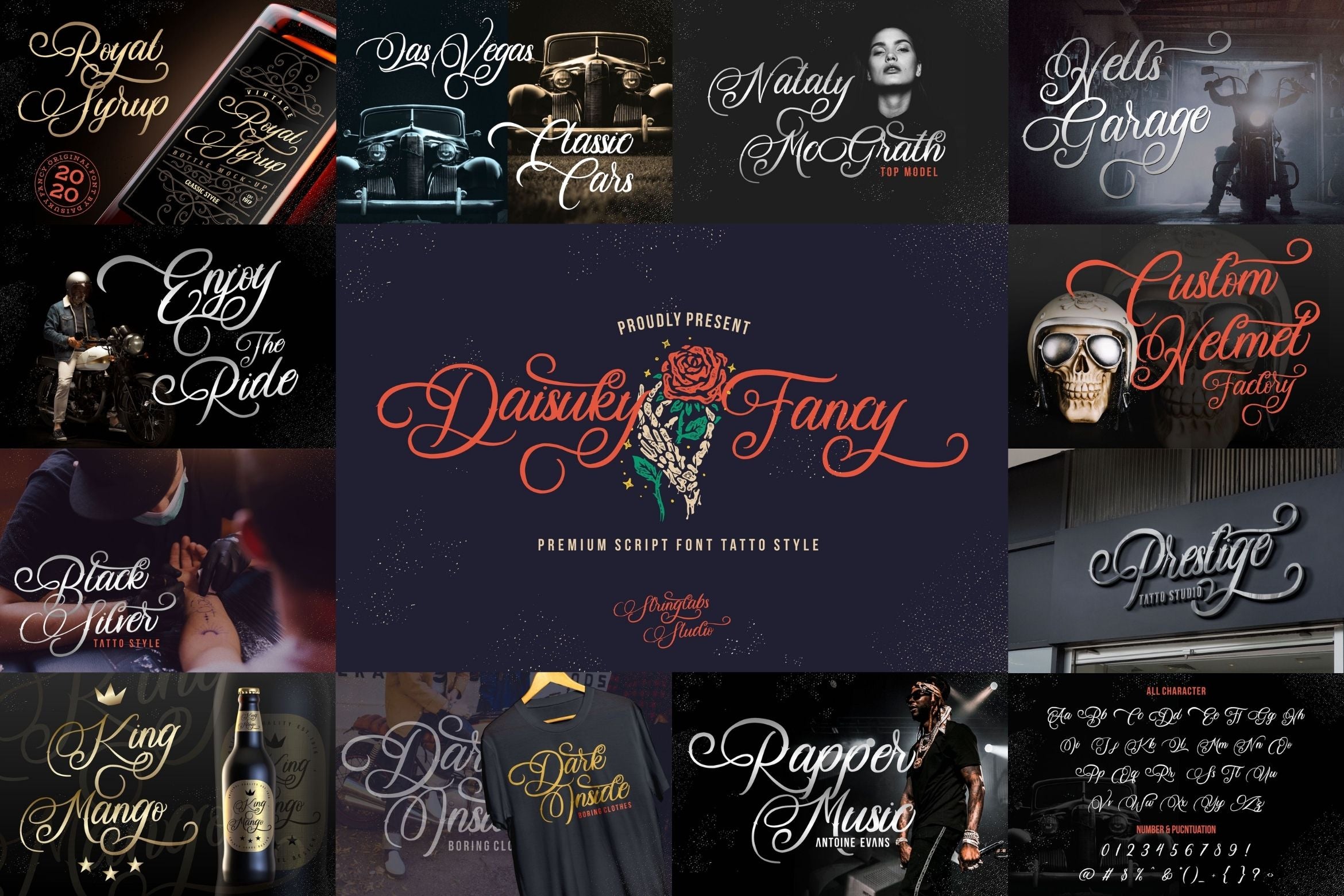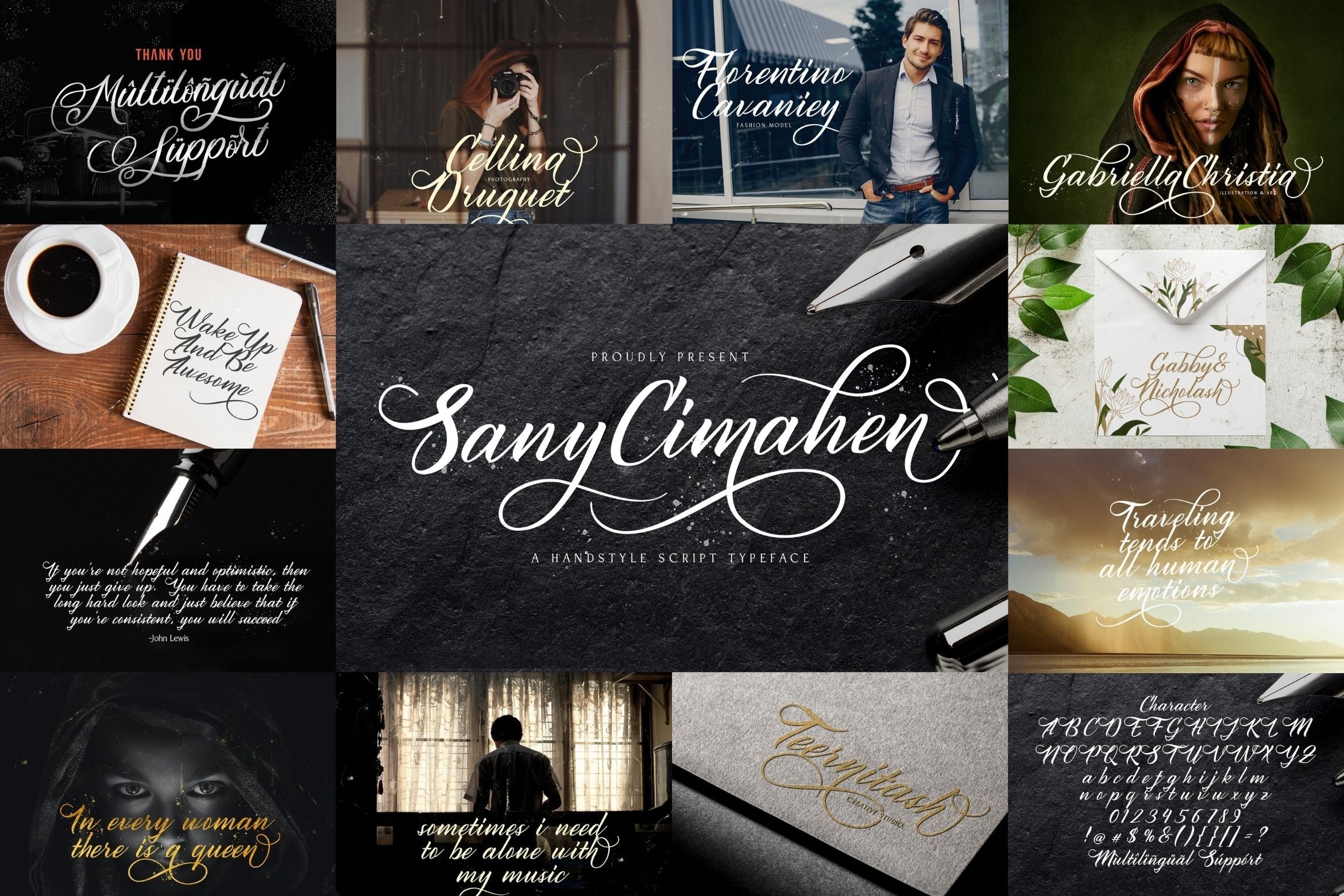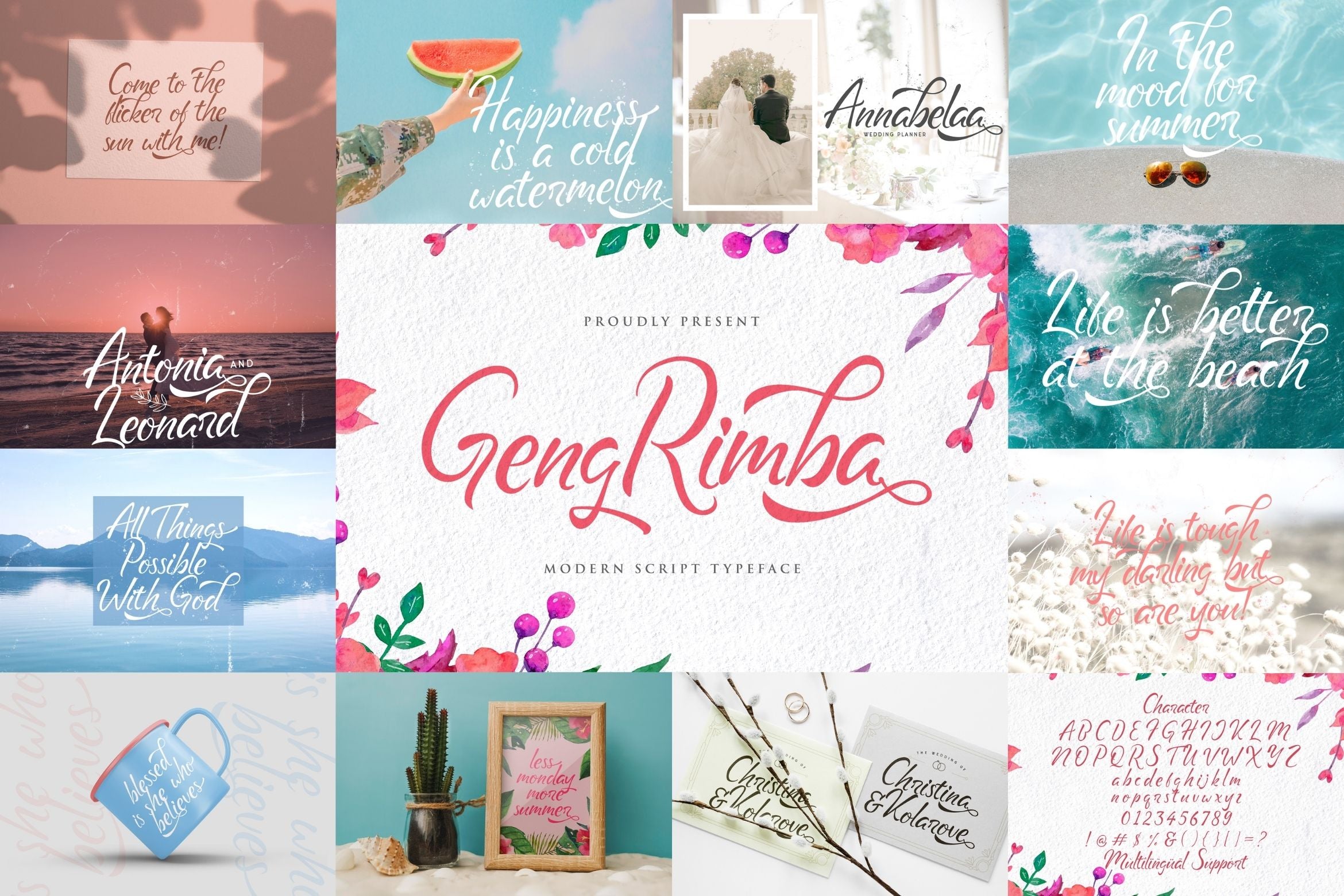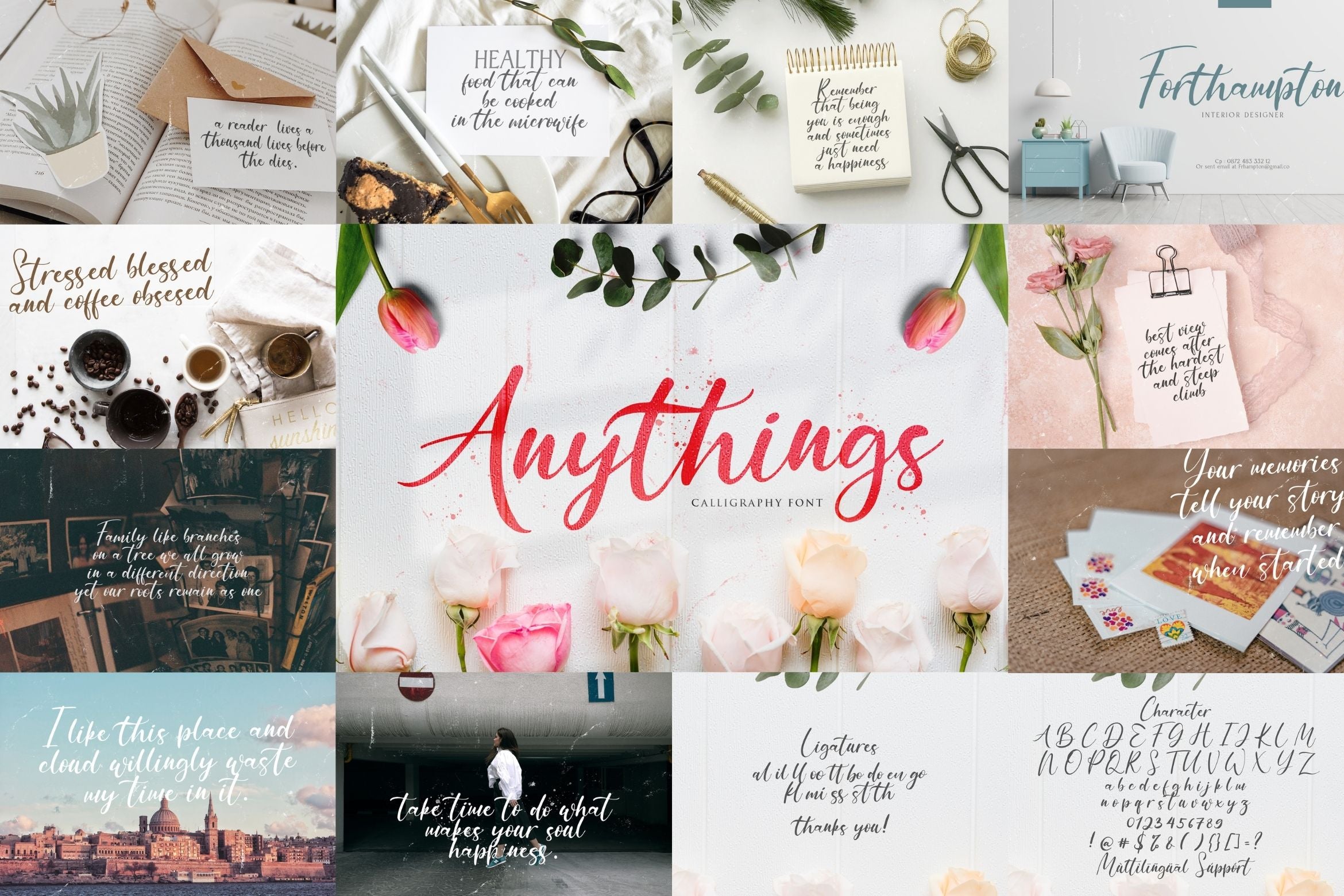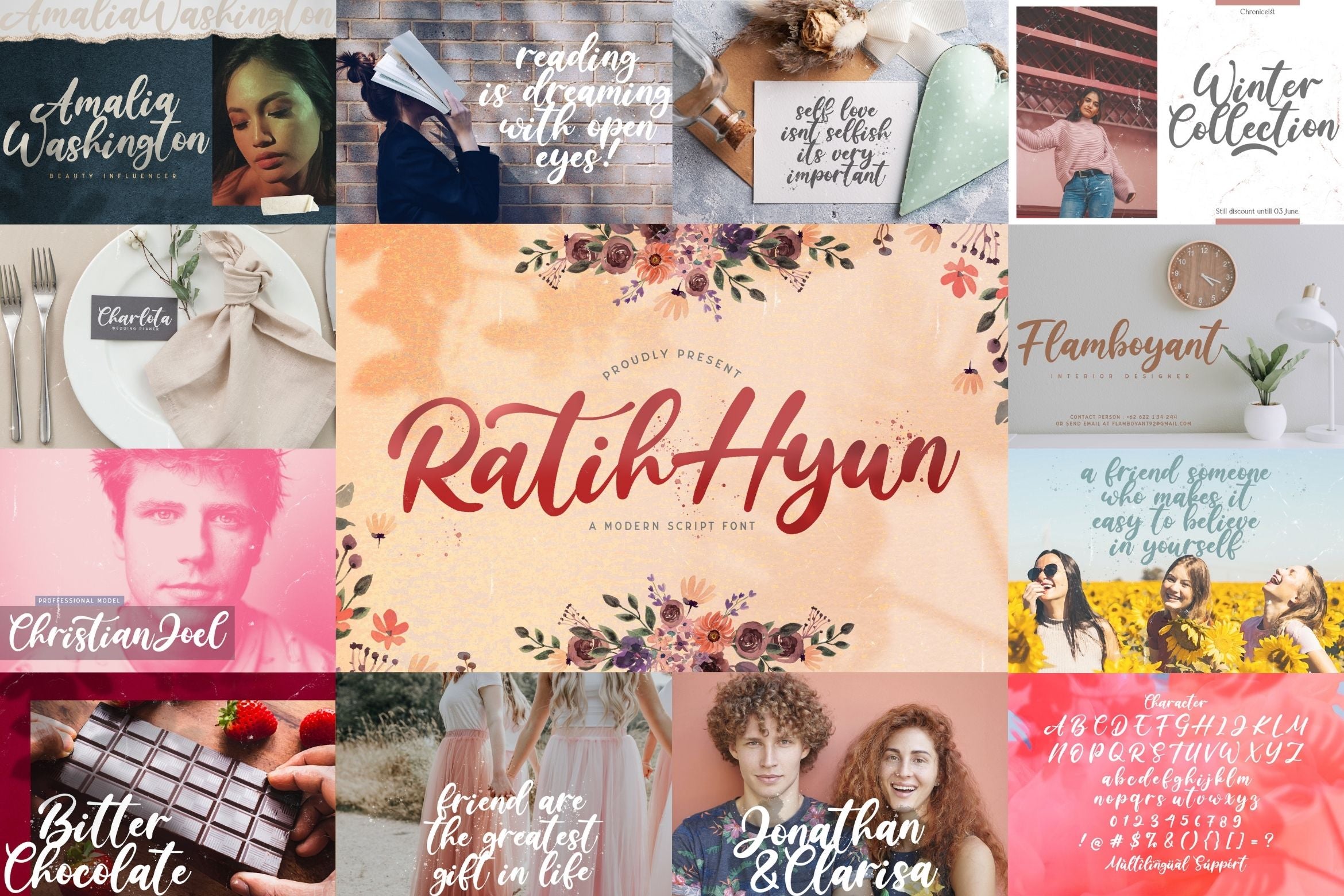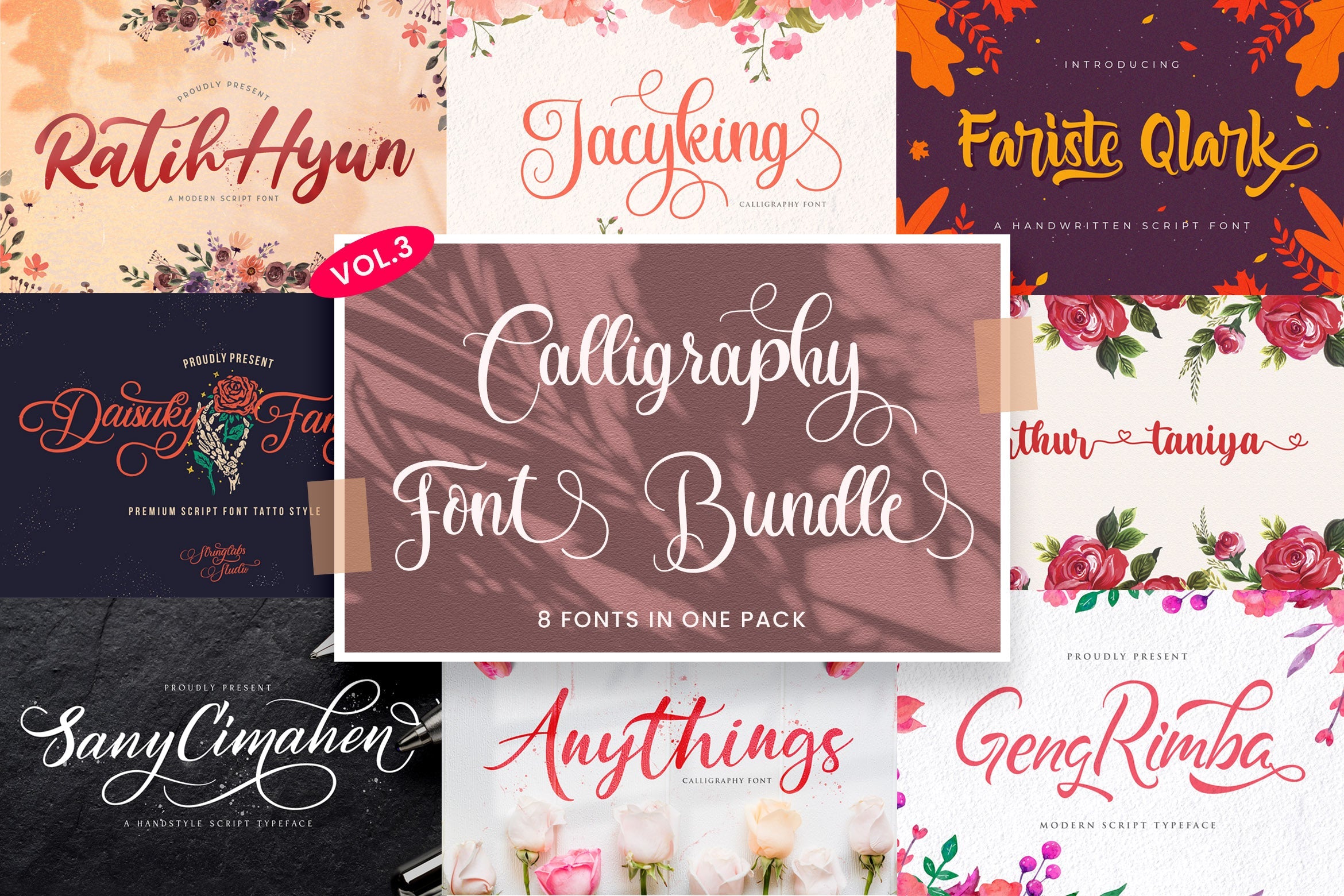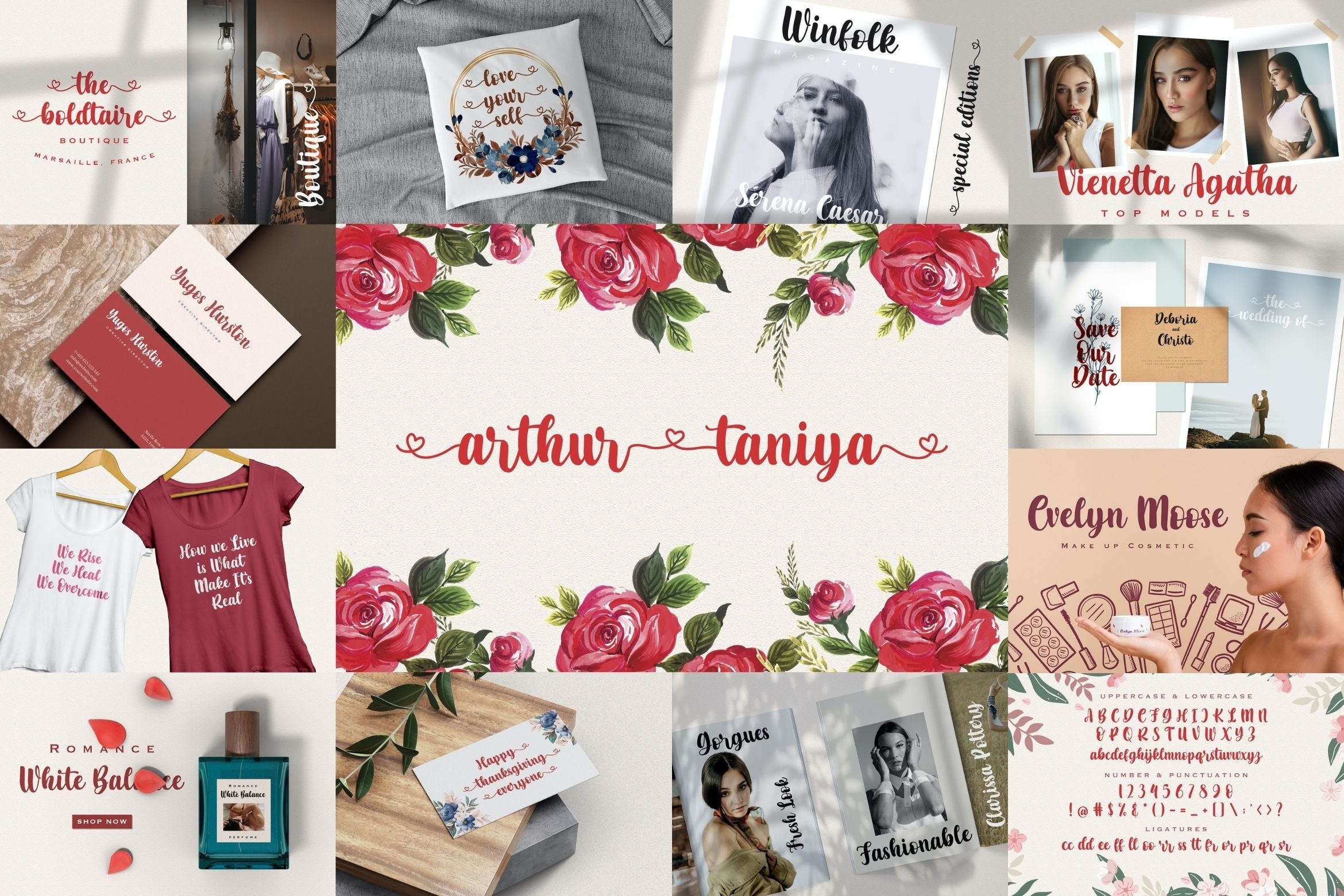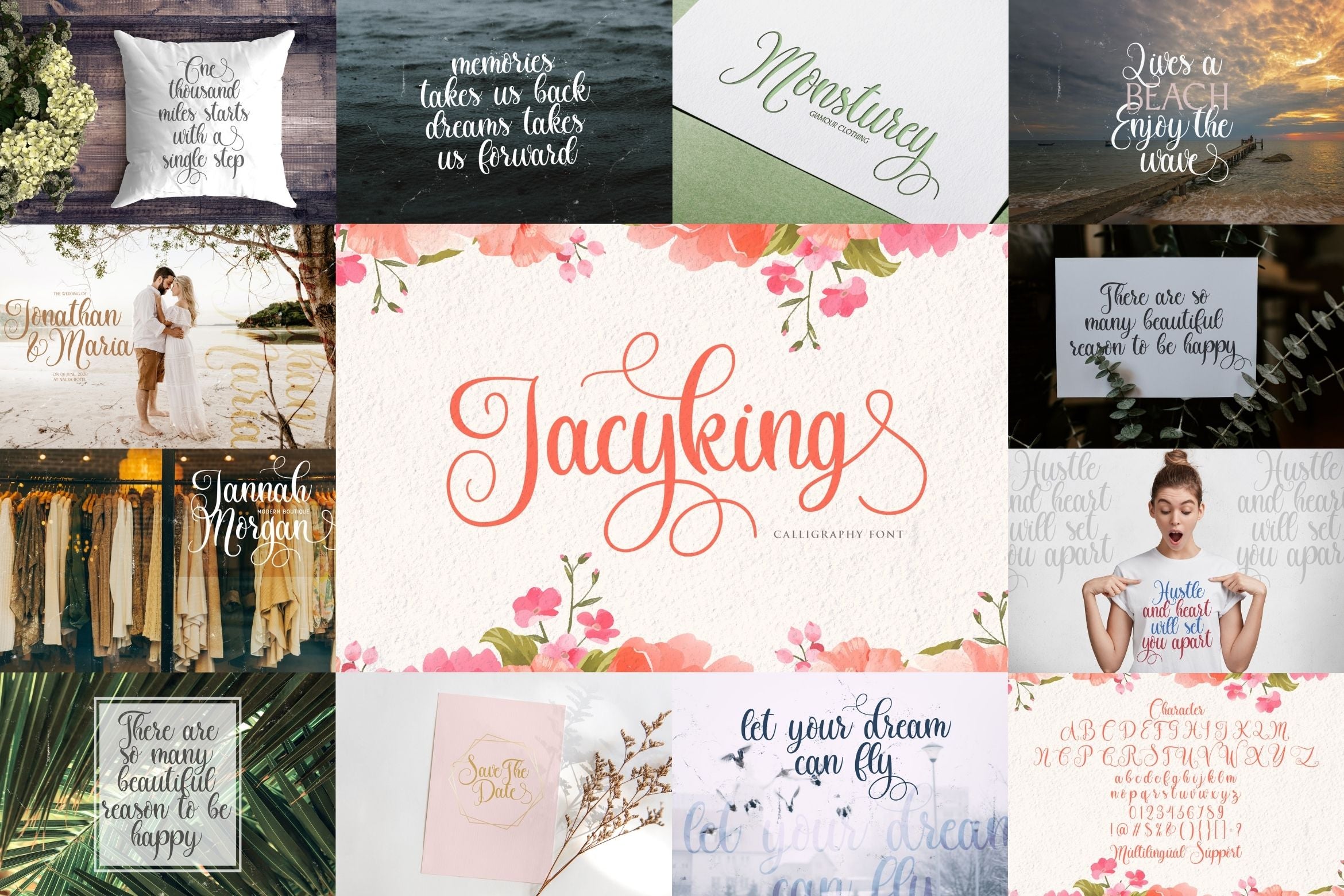
Calligraphy Font Bundle Vol 3
About Calligraphy Font Bundle Vol 3
Calligraphy Font Bundle Vol 3 is a delicate, elegant and flowing calligraphy font. This font bundle contains 8 high quality handwritting calligraphy script font, it will look simply magical in a wide range of design projects, and also that will look particularly adept when used in logos, branding, packaging design, and much more. It has beautiful and well balanced characters and as a result, it matches a wide pool of designs. Add it to your most creative ideas and notice how it makes them come alive! FONTS INCLUDED : 1. Ratih Hyun 2. Arthur Taniya 3. Fariste Qlark 4. Jacyking 5. Daisuky Fancy 6. Sany Cimahen 7. Geng Rimba 8. Anythings Fonts available in format : OTF, TTF, WOFF, WOFF2